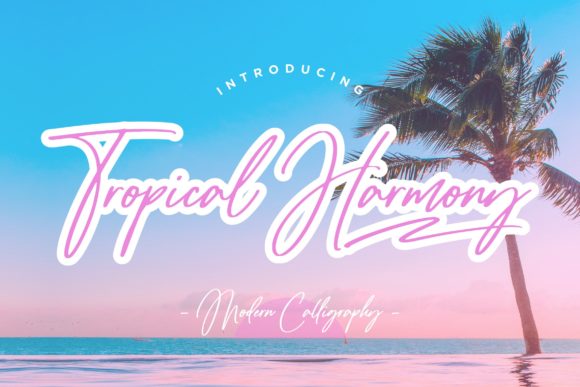
Tropical Harmony Script: Your Secret for Romantic Branding
If you have ever struggled to find a typeface that feels personal without looking messy, you are not alone. In a digital landscape dominated by clean, geometric sans serif font choices, finding a display font with genuine warmth can be a challenge. Enter Tropical Harmony Script. This enchanting handwritten font is not just another pretty face in your font library; it is a versatile tool designed to bridge the gap between casual elegance and professional branding. Whether you are a designer looking to soften a corporate identity or a small business owner wanting to add a personal touch to your packaging, this premium font offers a solution that feels both organic and intentional.
Understanding the Visual DNA
At its core, Tropical Harmony Script is defined by its fluid motion and romantic undertones. Unlike rigid brush scripts that can sometimes look aggressive, or formal calligraphy that feels dated, this typeface strikes a "harmony" between readability and artistic flair. The letterforms feature gentle, sweeping curves and a natural baseline that mimics the rhythm of actual handwriting. It carries a distinct personality—it is approachable, soft, and inherently feminine, yet it retains enough structure to be used in headline design.
When you look closely at the glyphs, you will notice the subtle variations in stroke width. This is crucial for a script font because it adds depth and prevents the text from looking flat or robotic. The connections between letters are smooth, ensuring that words flow together rather than appearing as disjointed characters. This level of craftsmanship makes it a standout creative font, suitable for projects where the message needs to feel heartfelt and genuine. It avoids the common pitfalls of many free handwritten fonts, such as inconsistent kerning or illegible ascenders, making it a reliable asset for professional work.
Where This Script Font Truly Shines
The versatility of Tropical Harmony Script is one of its strongest selling points. While it is undeniably beautiful, its real value lies in how it adapts to different mediums. In packaging design, for instance, this font can transform a standard product into a luxury gift. Imagine a scented candle label or a high-end chocolate box; the script adds an immediate sense of artisanal quality. It tells the customer that care went into the product.
In the realm of digital design, particularly web design and social media graphics, Tropical Harmony Script serves as a perfect counterpoint to modern typography. If your website uses a standard sans serif font for body text, using this script for pull quotes or section headers can break the visual monotony and guide the user's eye. For social media, where grabbing attention is paramount, the font’s romantic feel is excellent for lifestyle brands, wedding planners, and boutique influencers. It creates a visual "vibe" that static, blocky fonts simply cannot achieve.
Furthermore, this font is a powerhouse for editorial design and greeting cards. Publishers working on lifestyle magazines or book covers for the romance genre will find it particularly useful. It adds a narrative element to the typography itself. For entrepreneurs, using Tropical Harmony Script on business cards or thank-you notes can leave a lasting impression of warmth and professionalism, distinguishing you from competitors who rely on generic typefaces.
Strategic Font Pairing and Hierarchy
Using a script font effectively requires more than just typing out words; it requires an understanding of visual hierarchy. Tropical Harmony Script is best utilized as an accent rather than the workhorse of your design. Because it is a display font with high personality, using it for long paragraphs would be tiring for the reader. Instead, reserve it for headlines, sub-headers, or call-to-action phrases.
The key to successful font pairing is contrast. To let Tropical Harmony Script breathe, pair it with a clean, neutral sans serif font or a classic serif font. For example, a geometric sans serif font for your main body text provides a stable, modern foundation, allowing the script to pop as the focal point. Alternatively, pairing it with a light-weight serif font can create a sophisticated, "high fashion" aesthetic often seen in beauty branding.
Consider the weight of the fonts as well. Since Tropical Harmony Script has a medium weight with flowing lines, it pairs best with body text that is lighter or strictly regular weight. This ensures that the brand identity remains balanced. You don't want the header and the body text fighting for attention. When used correctly, this font helps establish a clear hierarchy, guiding the reader from the expressive headline to the informative body copy seamlessly.
Before integrating any new design assets into your workflow, a practical evaluation is necessary. When working with Tropical Harmony Script, always test the font in the specific context of your project. View it at different sizes—what looks romantic on a large poster might lose its charm on a small mobile screen. Check the legibility of specific letter combinations relevant to your brand name or headline.
Adding a Human Touch to Modern Design
In an era of AI-generated content and algorithm-driven design, the human touch is more valuable than ever. Tropical Harmony Script offers a way to inject emotion and personality into your projects. It is more than just a typeface; it is a communication tool that conveys trust, romance, and creativity. Whether you are designing a wedding invitation, launching a new skincare line, or refreshing your blog's header, this font provides the flexibility and elegance needed to connect with your audience on a deeper level. By treating this script font as a strategic component of your brand identity, you can elevate your work from simply functional to truly memorable.